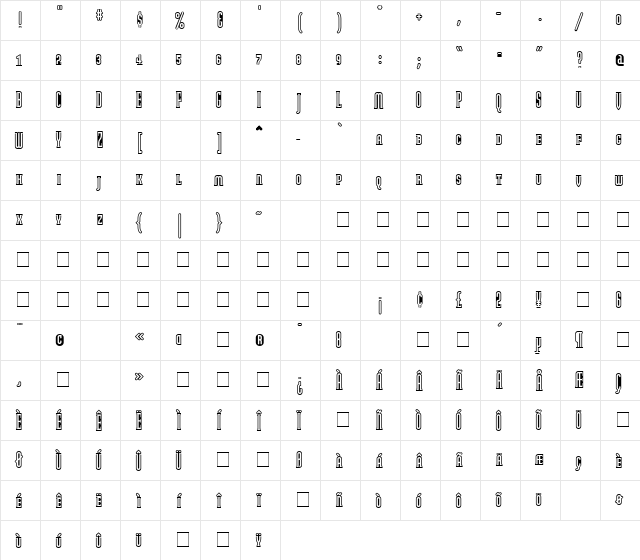
ModulaOutlinedSmallCaps Outlined Small Caps
Design Context for ModulaOutlinedSmallCaps Typeface
ModulaOutlinedSmallCaps is built around its visual character rather than neutral utility — its distinctive forms are designed to make an impression at display sizes.